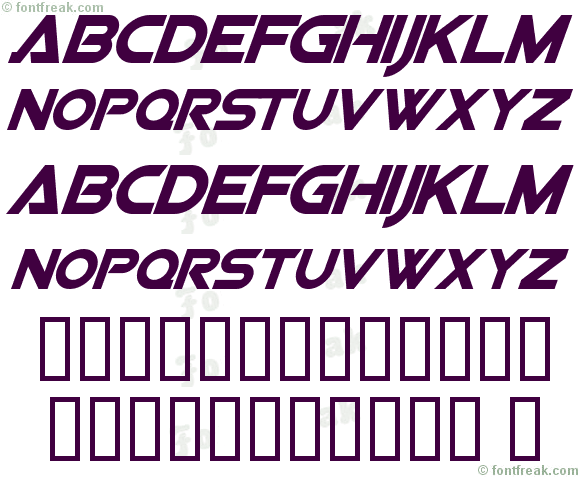
Viper Squadron
Viper Squadron Italic
Viper Squadron Solid
Viper Squadron Solid Italic
About Viper Squadron
Viper Squadron is a striking display font designed by Shyfonts Type Foundry, classified as a decorative typeface. Released in 1999, this font features bold, solid strokes that exude a sense of strength and modernity. The letterforms have a unique geometric structure, characterized by a consistent stroke weight that creates a sleek appearance. The design incorporates angular elements that give it a dynamic and futuristic look, making it an excellent choice for various creative applications.
The Viper Squadron font is particularly well-suited for use in eye-catching branding projects, such as logo designs for tech startups or gaming studios. Its distinctive style makes it ideal for movie posters, particularly in the action and sci-fi genres, where it can effectively convey excitement and energy. Additionally, it can be used in promotional materials for events or products aimed at a younger audience, such as gaming conventions or tech expos. Small business owners looking to create impactful signage or marketing materials will also find this font to be a valuable asset.
What sets the Viper Squadron font apart is its unique blend of modernity and boldness, making it a memorable choice for any design. Its ability to command attention while remaining clean and legible ensures that it will make a lasting impression across various mediums. For those interested in exploring this exceptional typeface, a Viper Squadron font free download is readily available, providing an opportunity to elevate any creative endeavor.